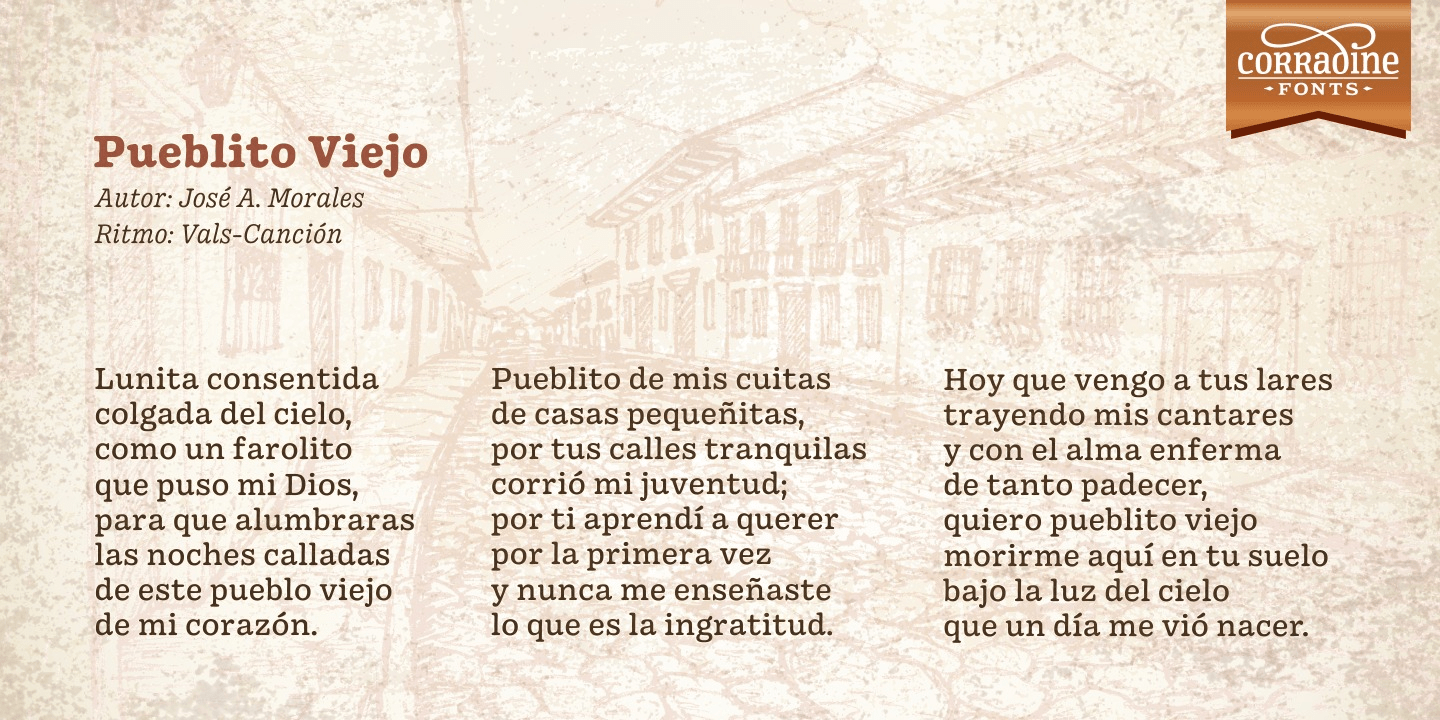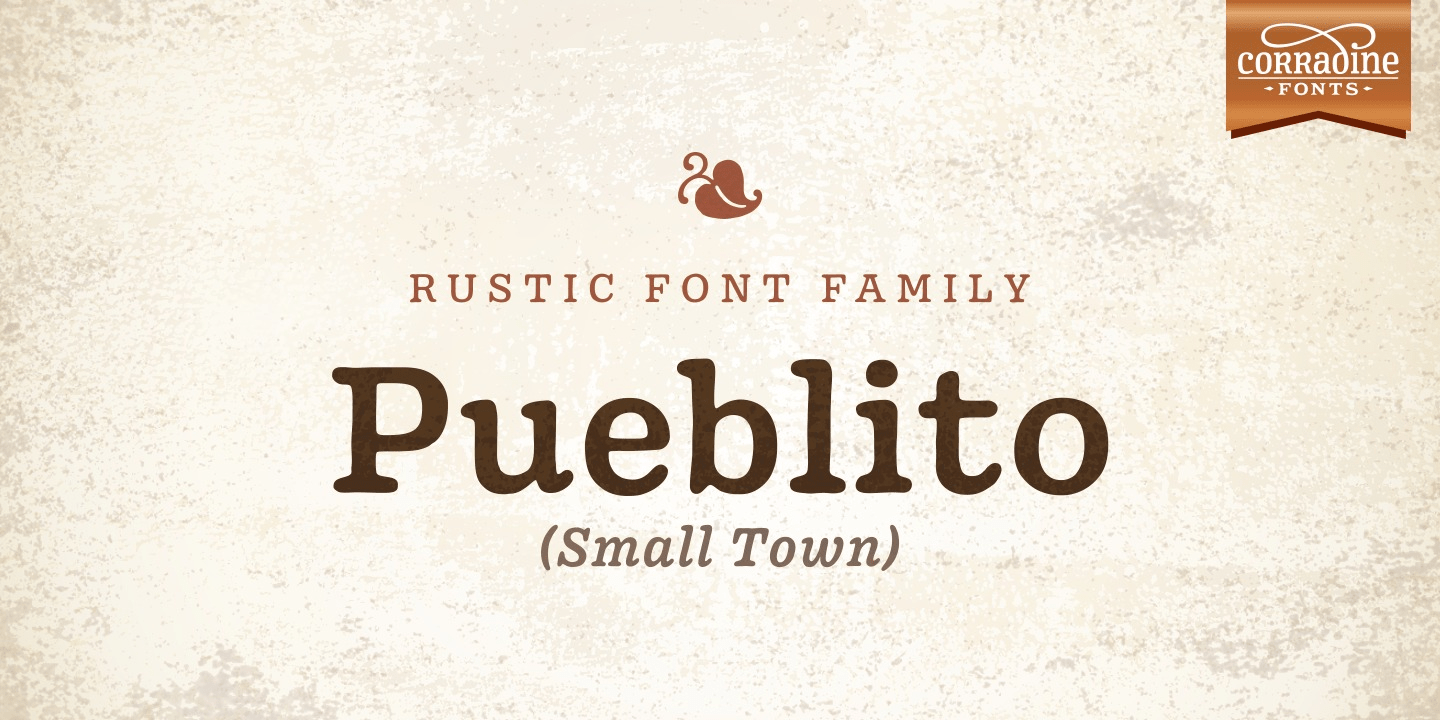
Pueblito
About Pueblito
Pueblito is a hand drawn font with a rustic and antique appearance. Was inspired from old books and newspapers but express a very own personality and not necessary represent a specific classic style. The family consists of twelve fonts in six weights…